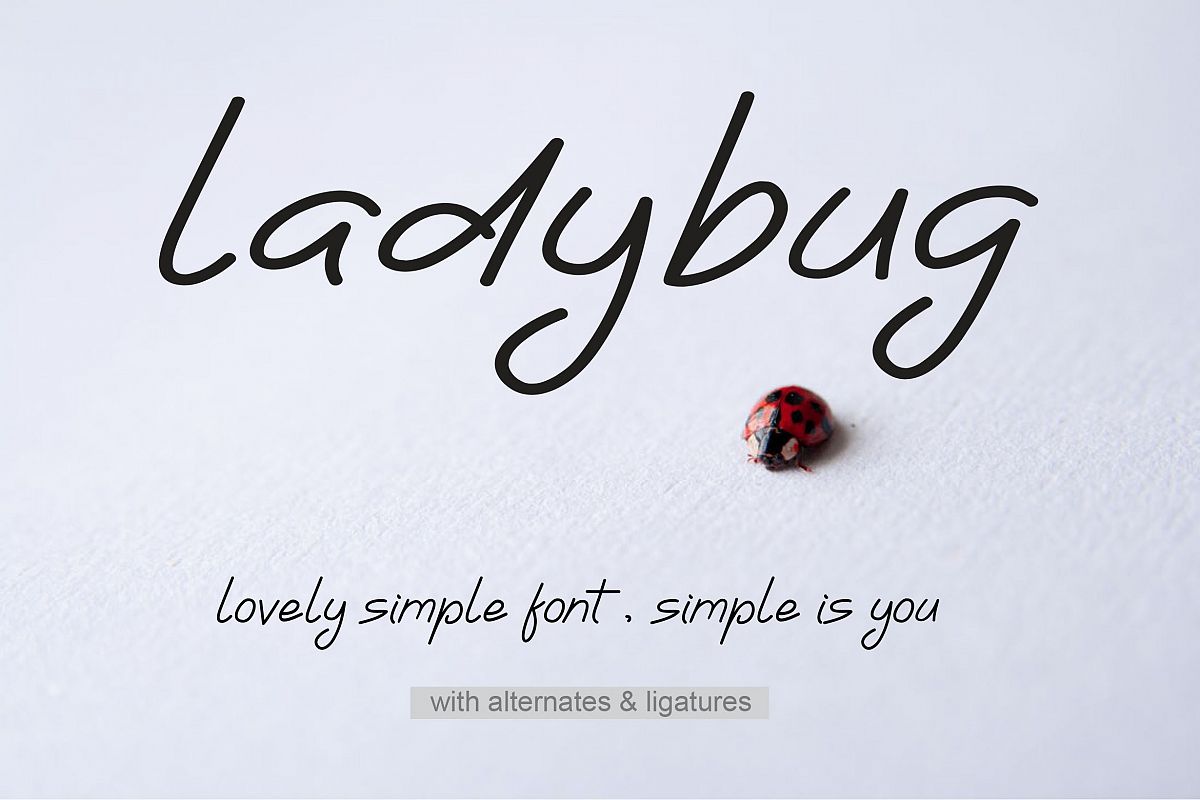
Ladybug | Simple Font
here's come Ladybug font.
This lovely simple handwritten font and a natural writing style.
It’s suitable for logos, watermarks on photography, signatures, quotes, album covers, business cards, clothing, magazines, posters and much more!
As usual,the font comes with many opentype features such as ligatures and alternates, and also support multilingual.